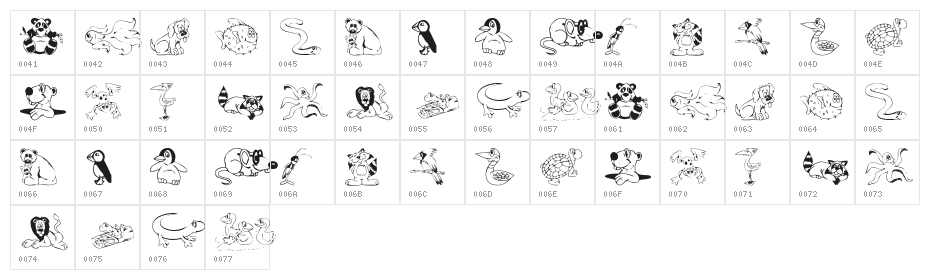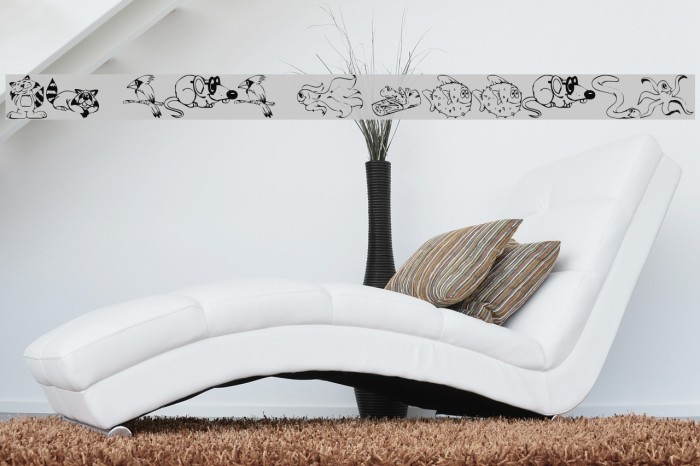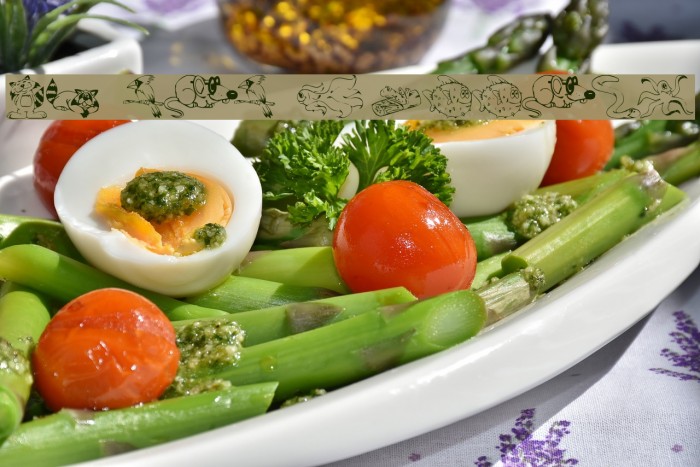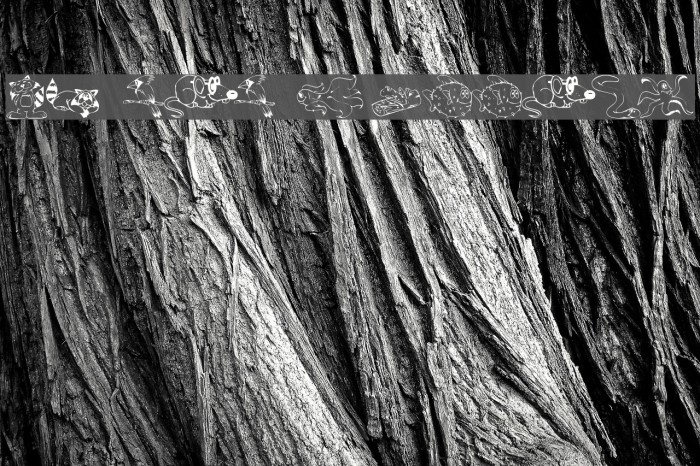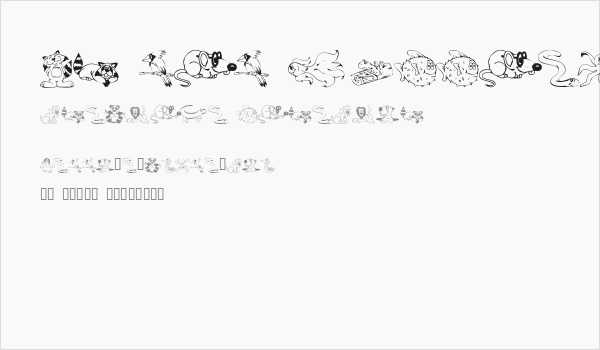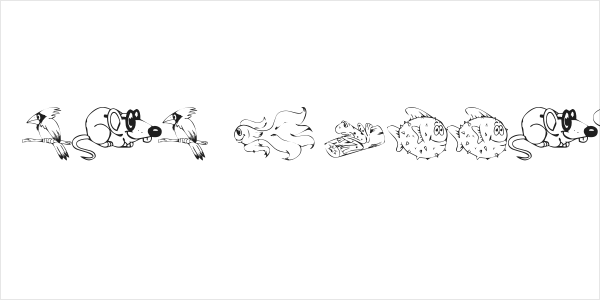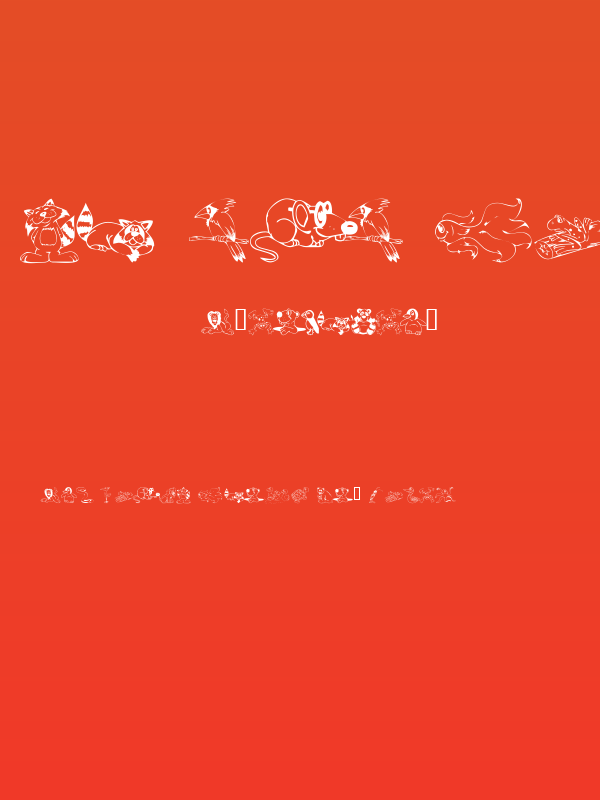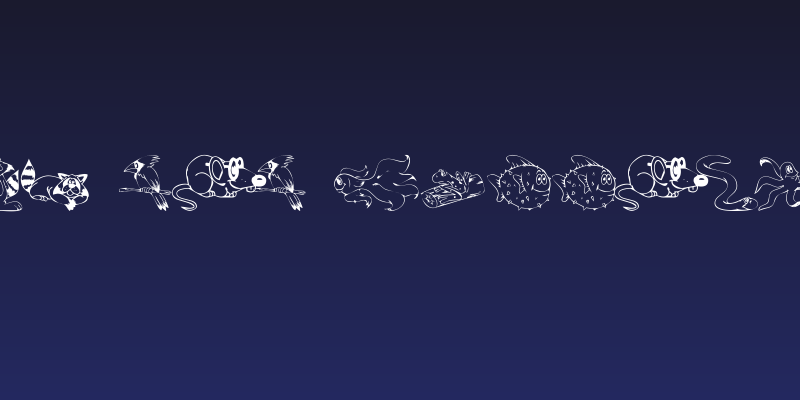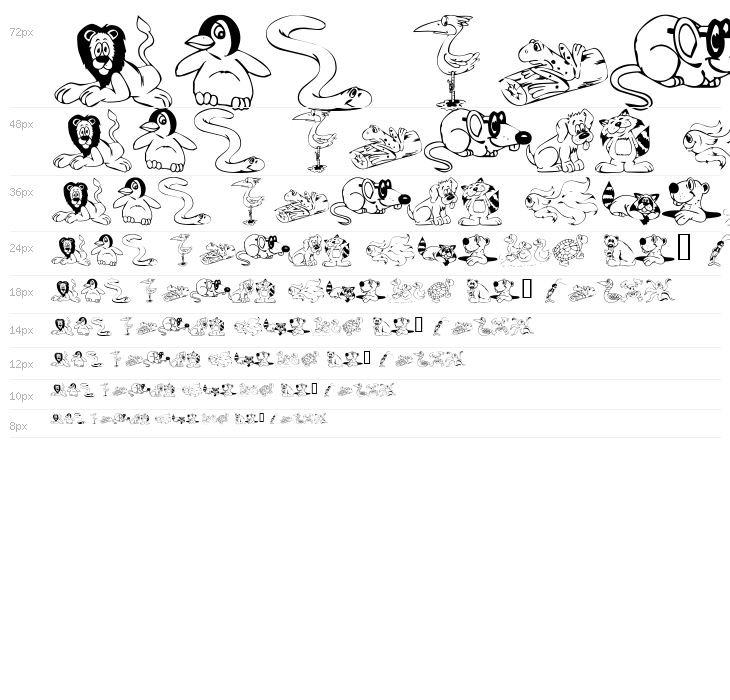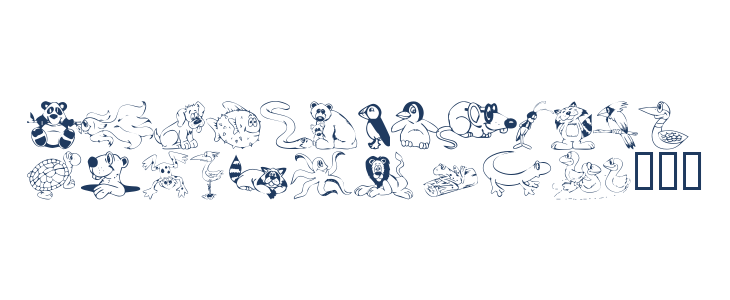
KR Lil Buddies Font
KR Lil Buddies Description
This is a playful and whimsical font featuring a variety of adorable animal illustrations. Each character is represented by a different cute creature, ranging from pandas and lions to penguins and turtles. The style is cartoonish and fun, making it perfect for projects that require a lighthearted and friendly touch. The font is not designed for traditional text but rather as a decorative element to add charm and personality to creative works.
| Overall Style | Playful and Cartoonish |
| Use Case | Decorative elements, Children's materials, Creative projects |
| Proposed Projects | Ideal for children's books, playful greeting cards, educational materials, and creative branding projects. |